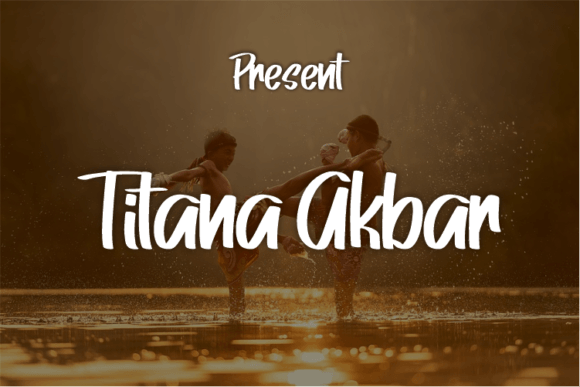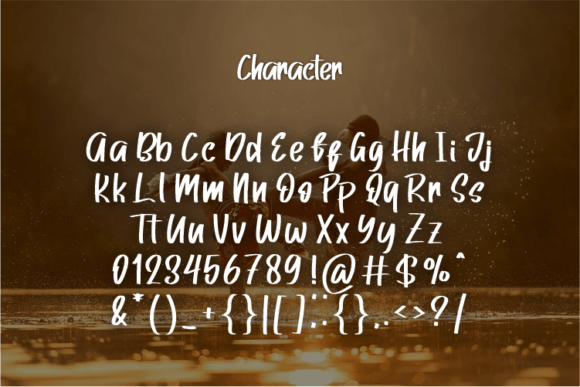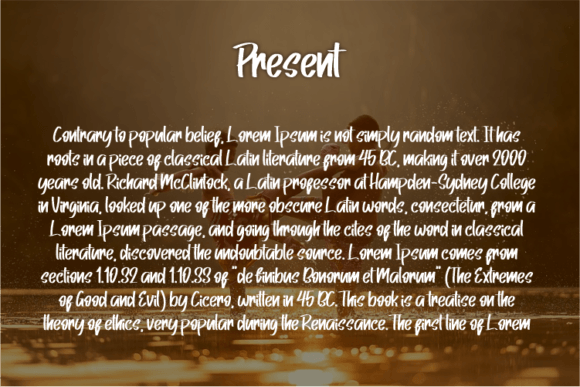
Bring Elegance and Simplicity Together with Titana Akbar Script Font
The Titana Akbar Script Font is a modern and stylish typeface that blends simplicity with luxury. With clean strokes and an elegant flow, this font is perfect for projects that demand a refined, high-end look. Whether you’re crafting a fashion logo or designing editorial titles, Titana Akbar elevates your typography with ease.
Perfect for Logos, Fashion, and Editorial Design
Titana Akbar is ideal for luxury brand logos, magazine layouts, movie titles, and book covers. Its sleek and modern aesthetic makes it a top choice for designers working on fashion-focused or minimalist branding.
Additionally, this script font works beautifully for quote designs, website headers, and social media posts where a touch of sophistication is needed. If you’re looking to express elegance without overwhelming the message, Titana Akbar delivers just the right balance.
A Stylish Script with a Clean, Modern Look
What sets the Titana Akbar Script Font apart is its clean line structure paired with flowing letterforms. The result is a script that feels handwritten yet polished—perfect for designs that need a personal yet professional vibe.
Each character is carefully crafted to ensure smooth readability while maintaining a luxurious look. Whether you’re using it for branding or print design, Titana Akbar adapts beautifully to a variety of applications.
Optimized for Digital and Print Projects
Titana Akbar is versatile across digital platforms and print formats alike. Use it for clothing labels, brand kits, fashion lookbooks, or movie posters, and enjoy crisp, clear lettering that enhances the overall design.
Moreover, the font pairs effortlessly with modern sans-serifs or classic serif typefaces, allowing you to create elegant contrasts and bold typographic compositions.
Why Choose Titana Akbar Script Font?
Here are some standout reasons to add this font to your design toolkit:
Clean, modern script style with a luxurious feel
Perfect for logos, fashion brands, titles, and magazines
Stylish yet simple for high-end minimalist designs
Readable across both small and large formats
Adds elegance and class to every creative project
Elevate Your Typography with Simplicity and Style
In conclusion, the Titana Akbar Script Font is a beautifully modern typeface made for designers who value clarity, elegance, and visual impact. Its minimalist charm makes it suitable for a wide range of uses, from branding to editorial work.
Whether you’re building a fashion brand, creating cinematic titles, or adding flair to a luxury label, Titana Akbar gives your design the modern sophistication it deserves. Let this font take your next project to a more refined level.